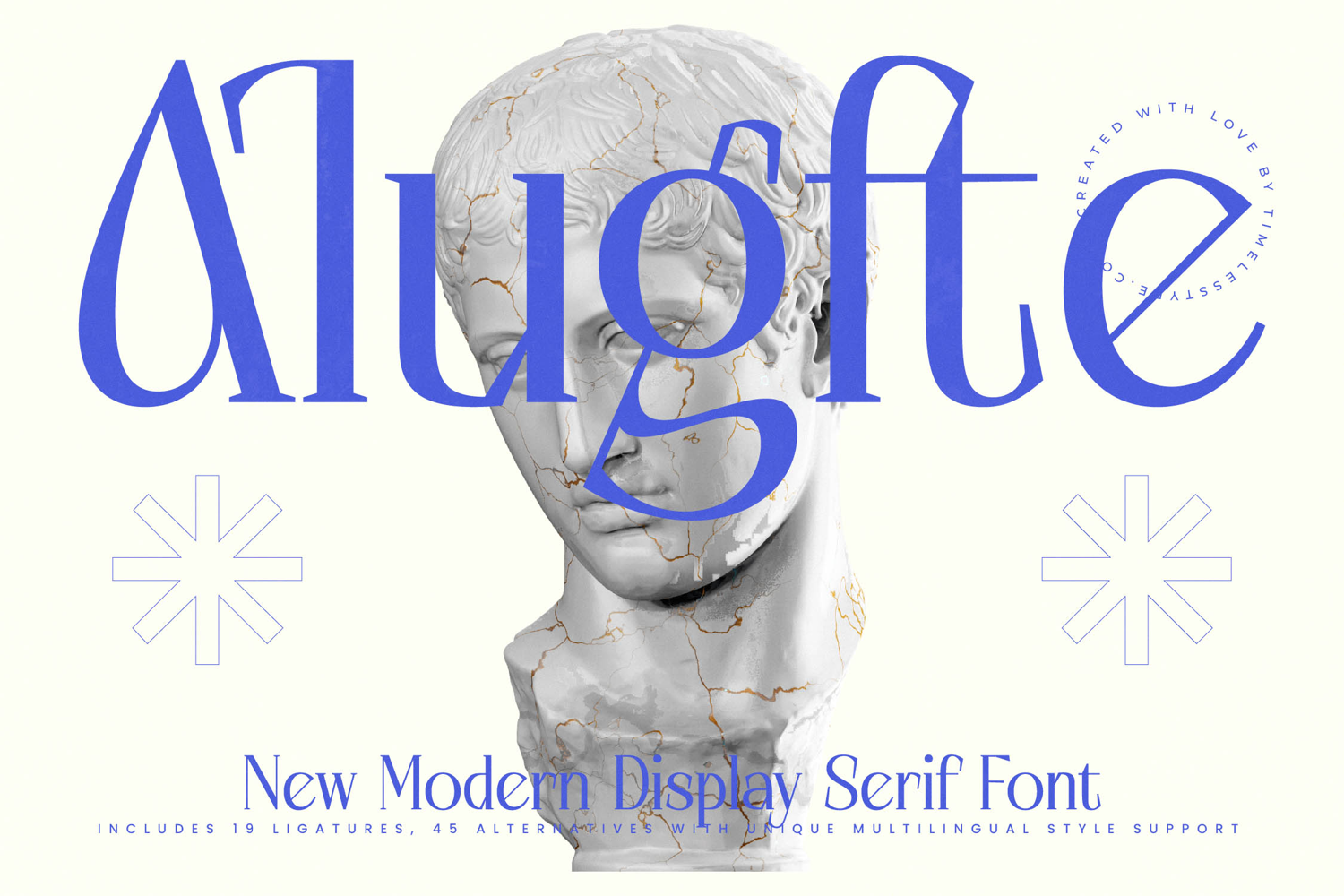
Alugfte - New Modern Display Serif Font
Augfte is a new modern display serif font that blends classical elegance with contemporary refinement. Its tall, clean letterforms, sharp serifs, and graceful alternates make it a versatile choice for projects that require sophistication and bold presence. Designed with 19 ligatures and 45 alternates, Augfte gives designers the freedom to create expressive, stylish, and customized typography that elevates any composition.
This font is ideal for headline typography, where its sleek proportions and refined details create immediate impact across posters, banners, and editorial spreads. In branding and logo design, Augfte communicates exclusivity and elegance, making it a perfect choice for fashion houses, beauty products, luxury goods, and cultural institutions that want to showcase prestige and authority. Its modern structure also makes it highly effective for packaging design, especially for perfumes, wines, cosmetics, and artisanal products where typography must embody luxury and timeless appeal.
Augfte thrives in advertising campaigns, wedding invitations, and event promotions, where its alternates and ligatures bring individuality and stylistic nuance. On social media and digital platforms, the font enhances storytelling with editorial-ready sophistication that ensures clarity and visual appeal.
With multilingual support, Augfte adapts seamlessly to international projects, extending its versatility for global branding and publishing.
Ultimately, Augfte is more than just a display font—it is a visual signature of elegance, creativity, and modern artistry. Whether applied to editorials, branding, packaging, or advertising, it ensures every project radiates strength, refinement, and unforgettable style.